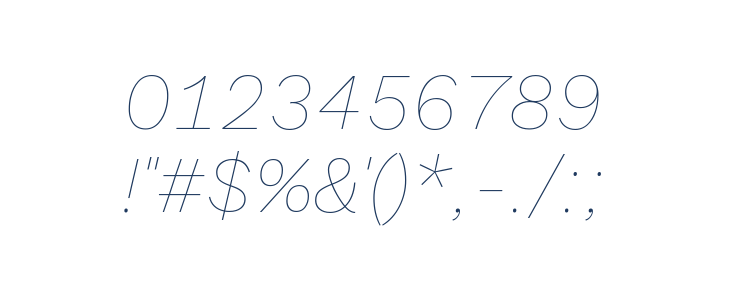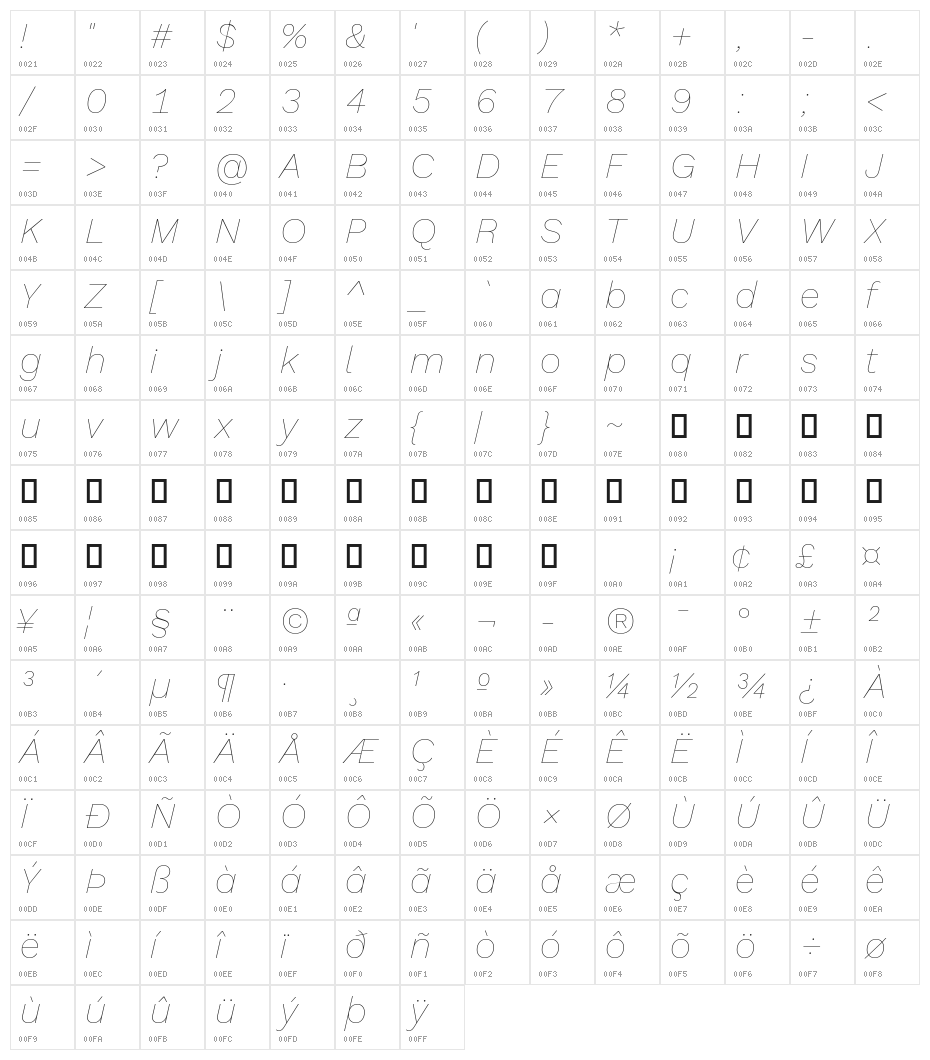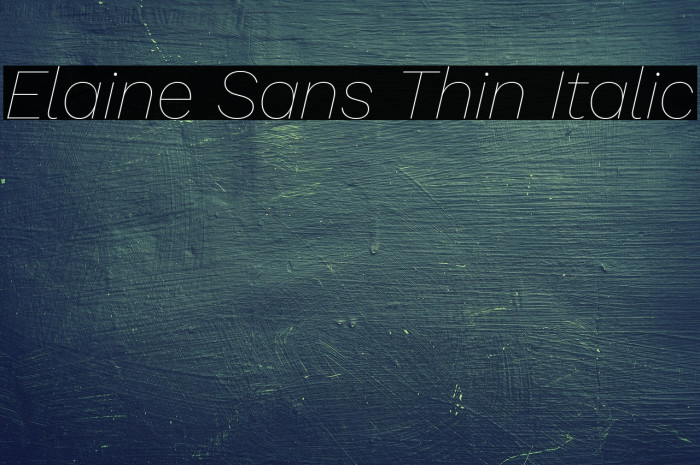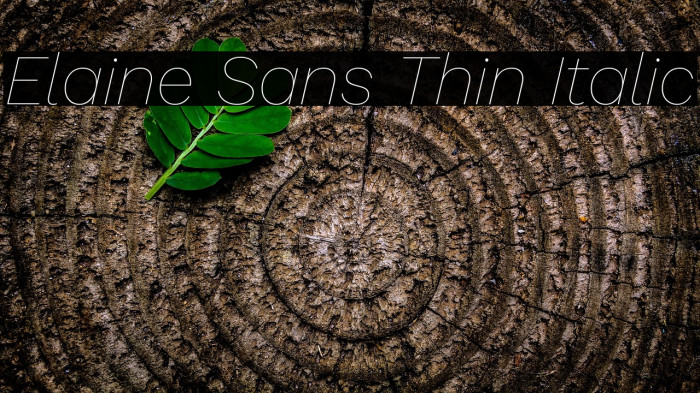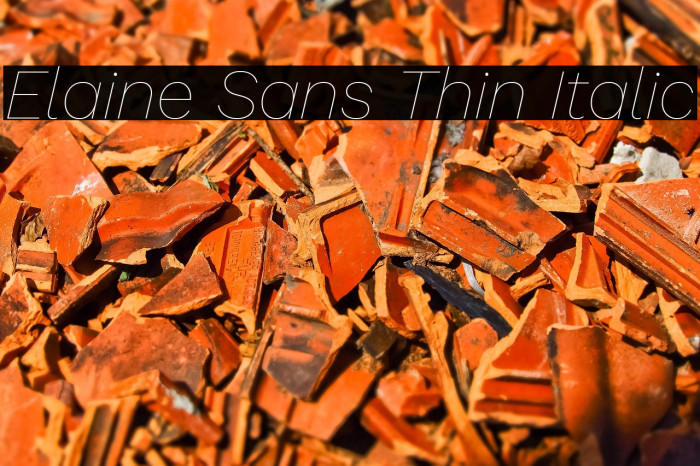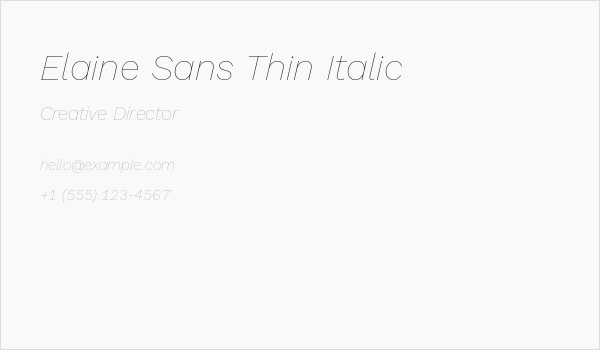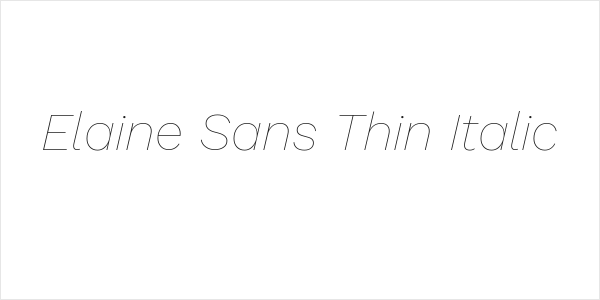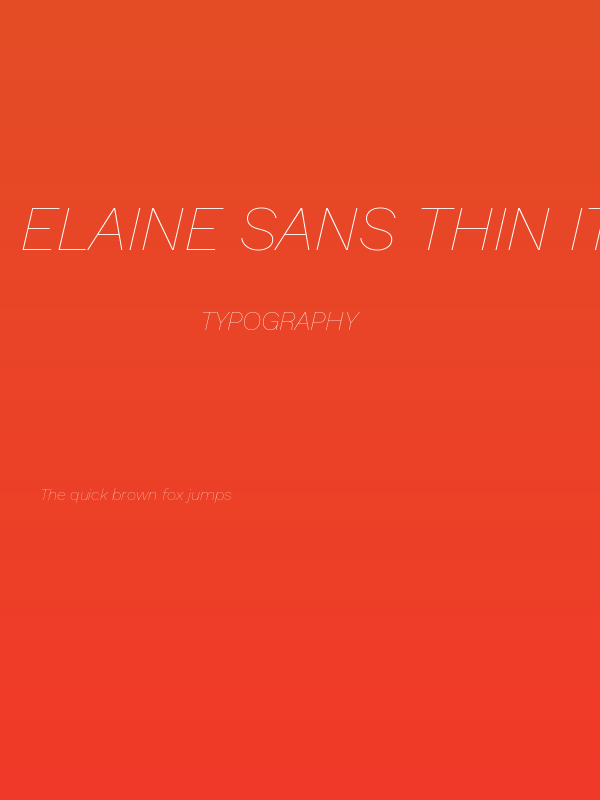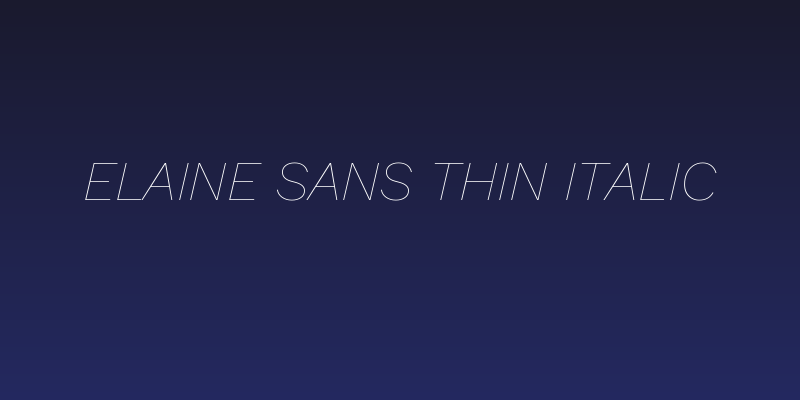
Elaine Sans Thin Italic Font
Elaine Sans Thin Italic Description
This font features a sleek and elegant design with thin, elongated letterforms that convey a sense of modernity and sophistication. The italic style adds a dynamic and fluid motion to the characters, enhancing the overall aesthetic appeal. Each letter is crafted with precision, maintaining a consistent stroke width that contributes to its minimalist appearance. The font's clean lines and open spacing make it highly legible, even at smaller sizes. Its contemporary style is suitable for a variety of design applications, offering versatility and a touch of elegance.
| Use Case | Headlines, Logos, Editorial design |
| Proposed Projects | Ideal for fashion magazines, luxury branding, minimalist websites, and elegant invitations. |